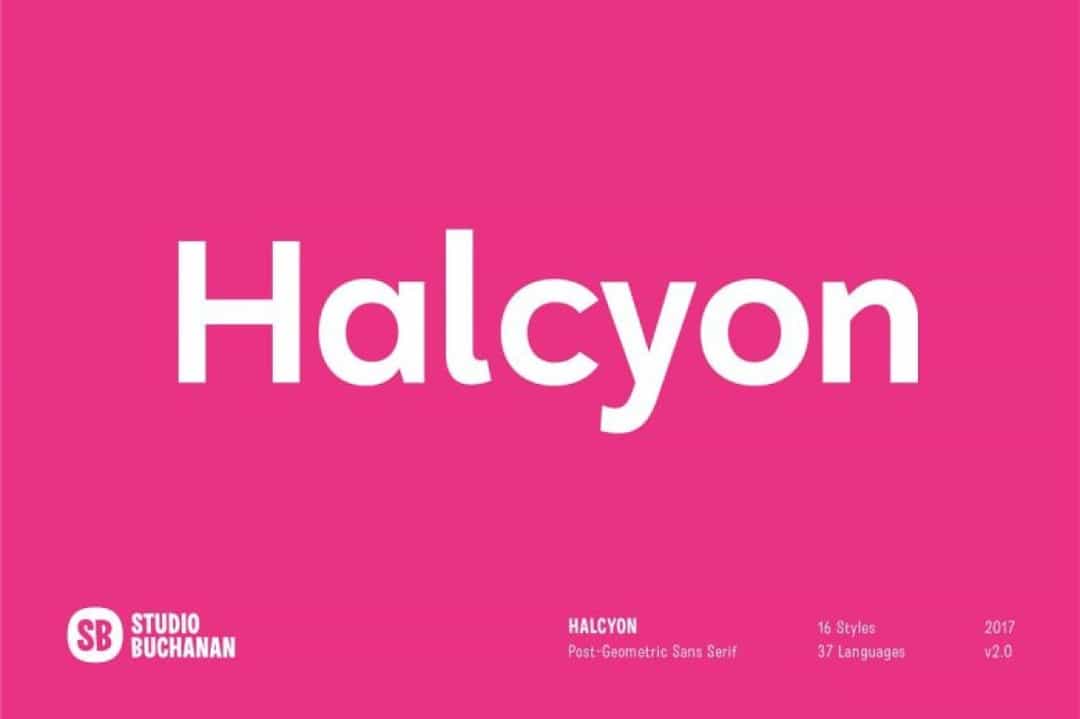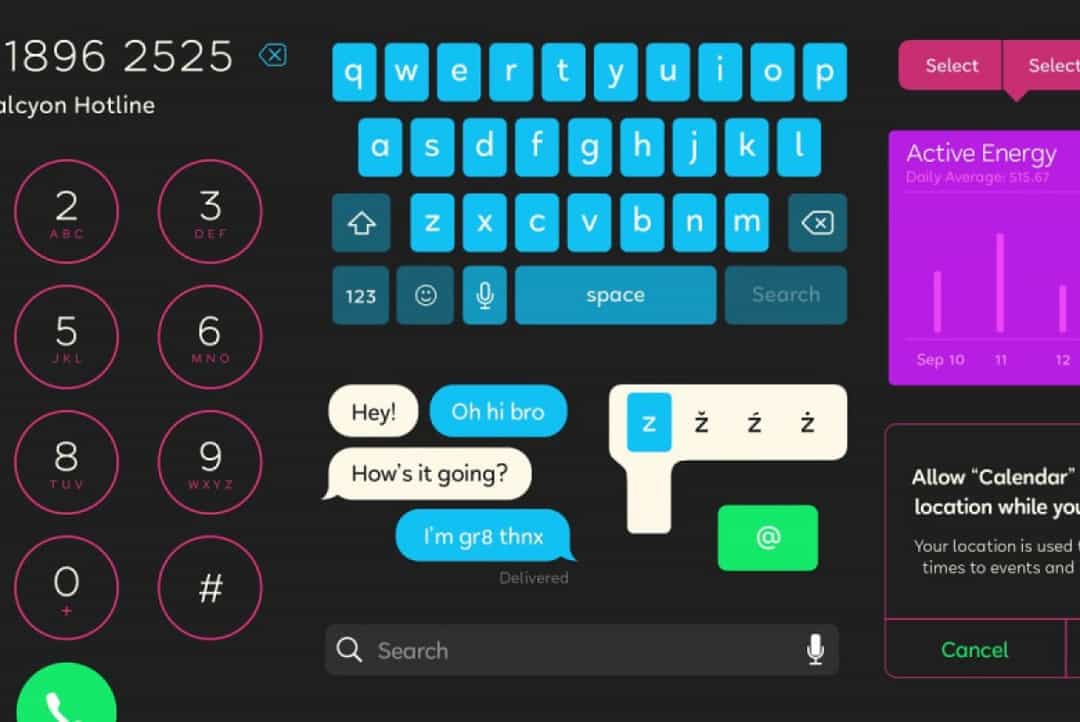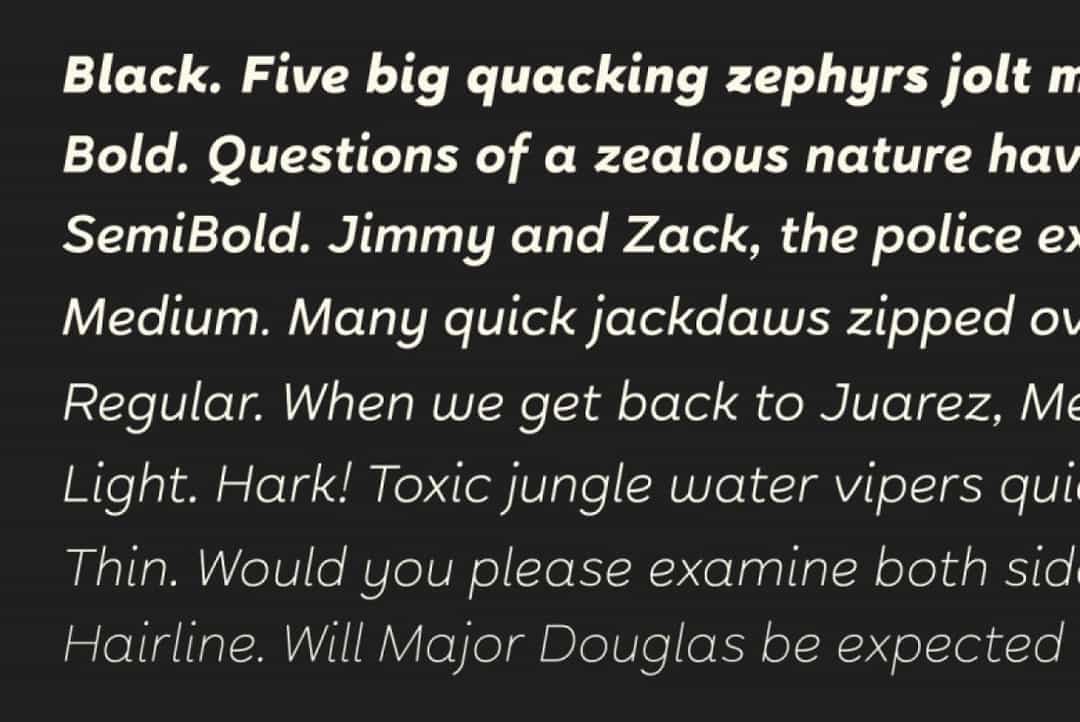
Halcyon Font was designed over an intensive four year process of design. Drawing inspiration from classic typefaces like Futura, Gill Sans and ITC Avant Garde, it blends geometric form with humanistic qualities in an unconventional subclassification we refer to as post-geometric. Halcyon Sans is everything you’d expect from modern sans-serif fonts but with added personality!